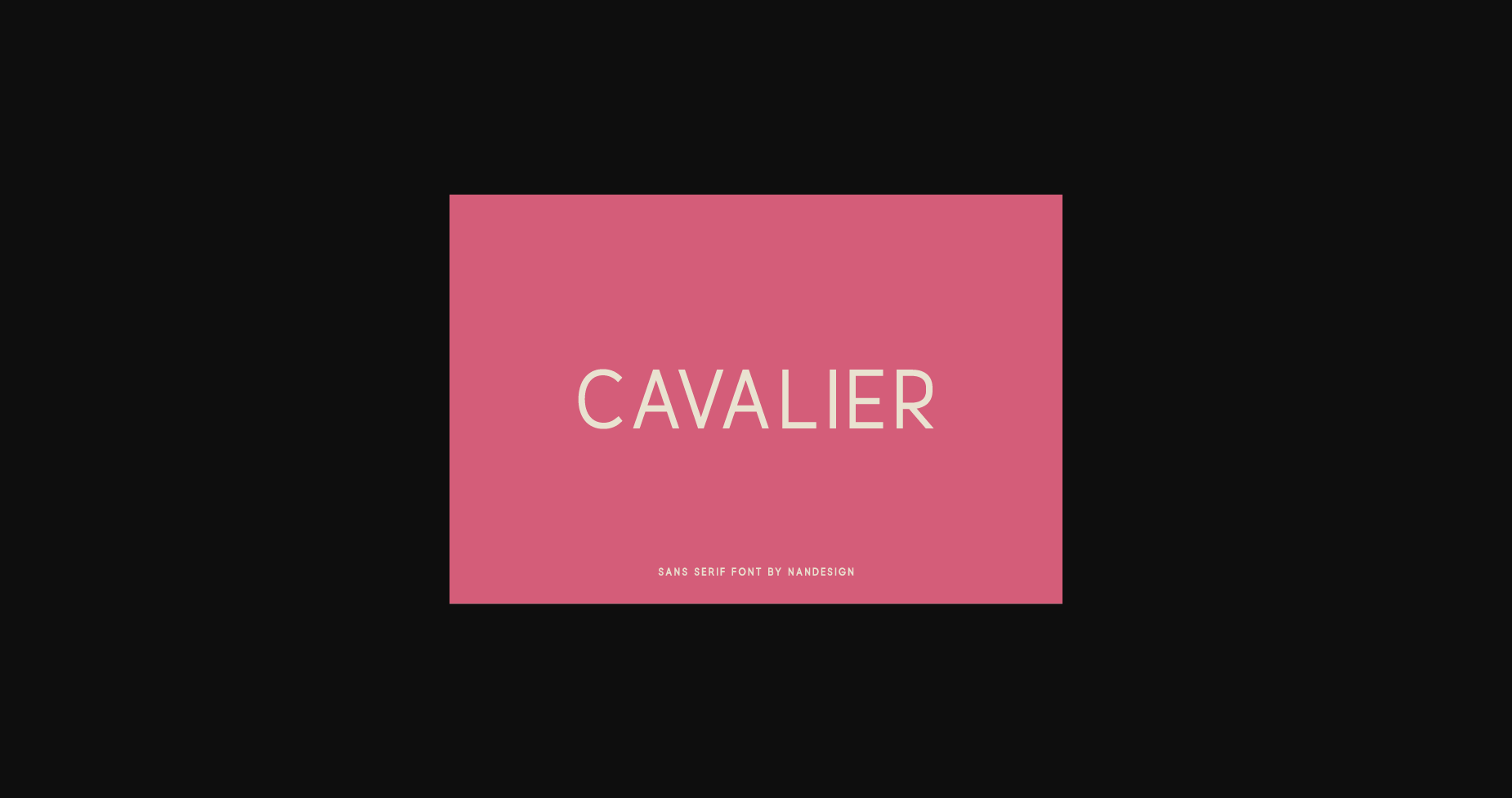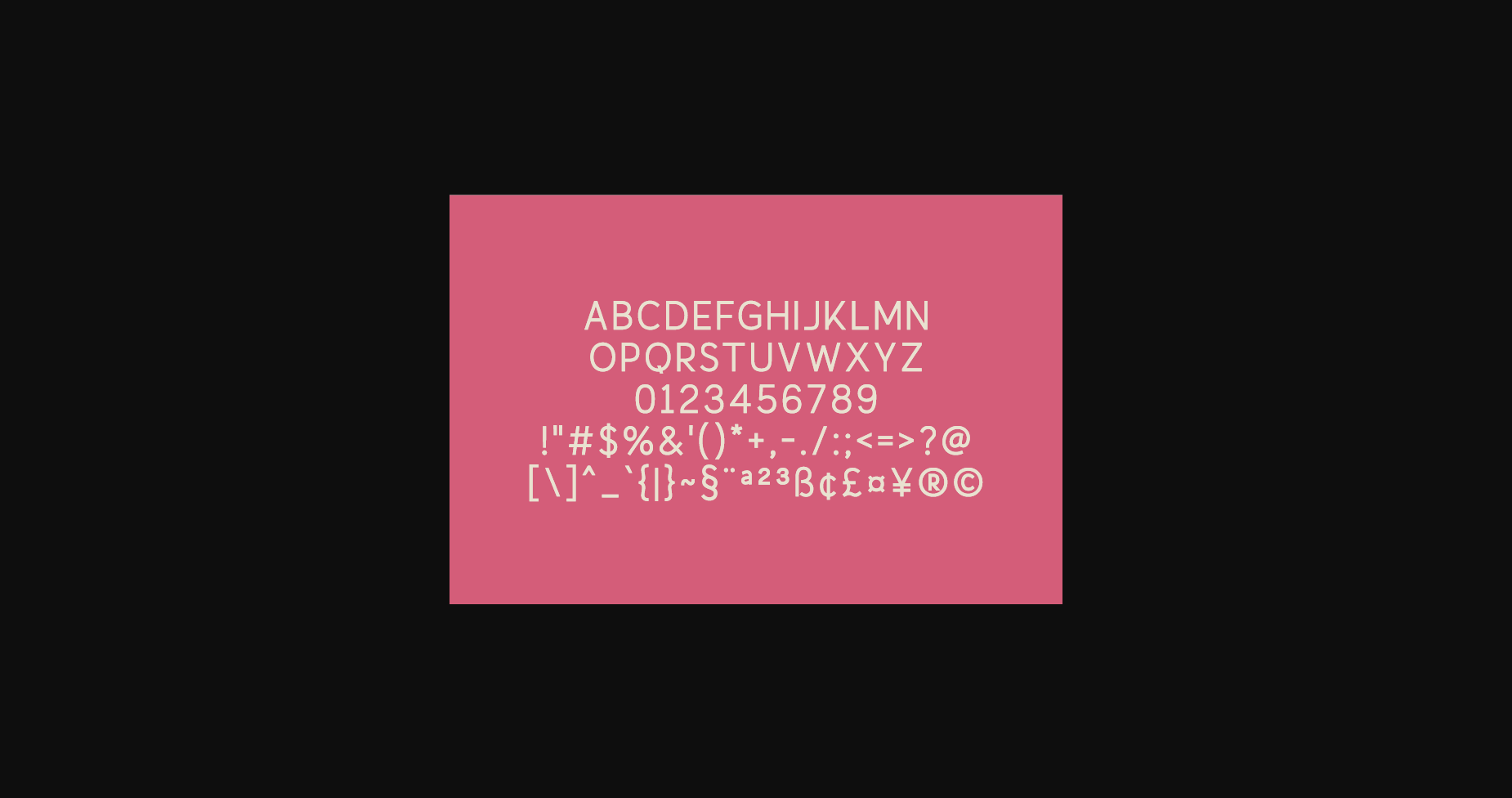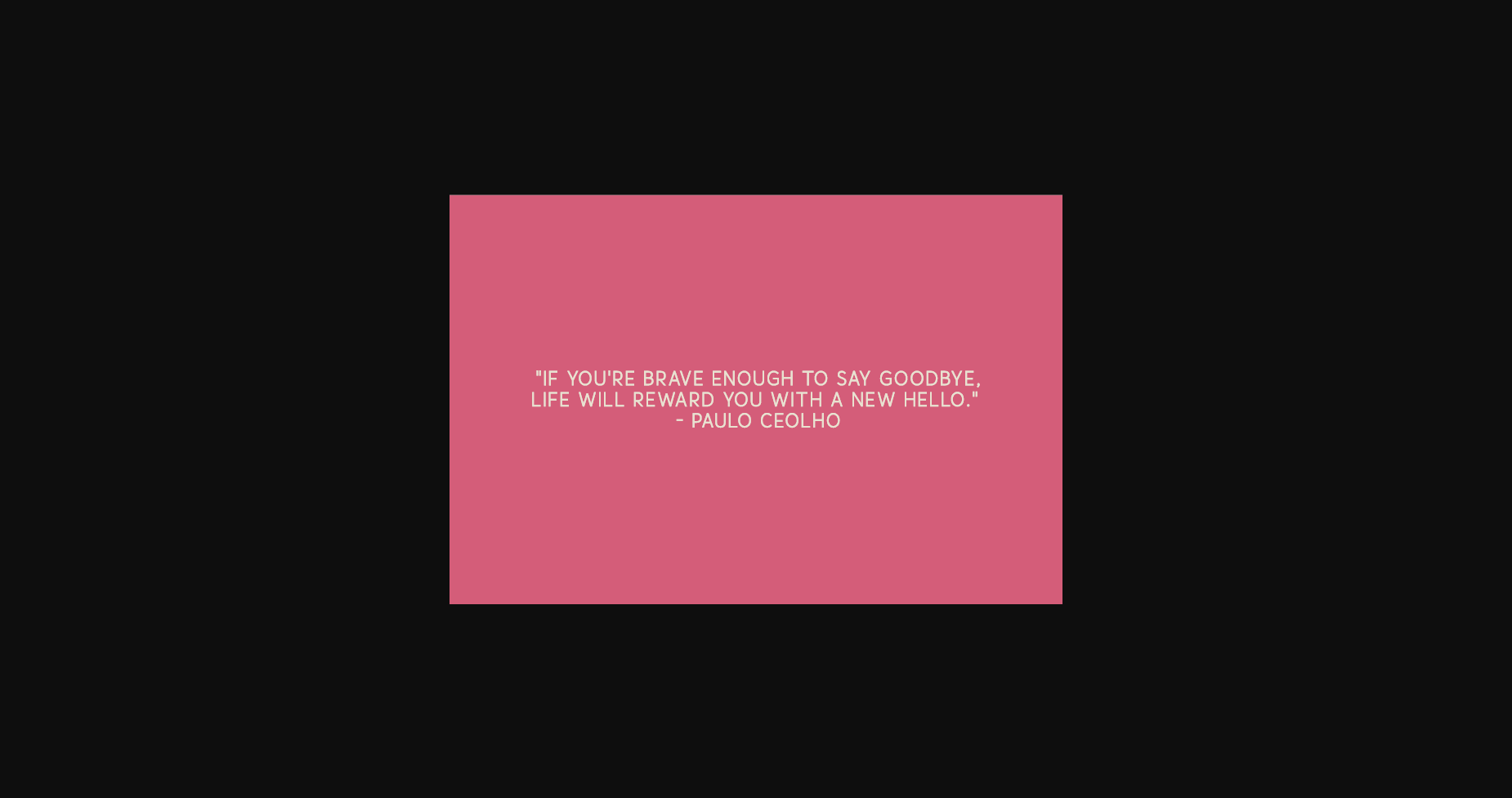
Cavalier is a stunning sans serif to complement every project you’re working on. Use to create beautiful headings, gorgeous invitations, stunning logos, and so much more!